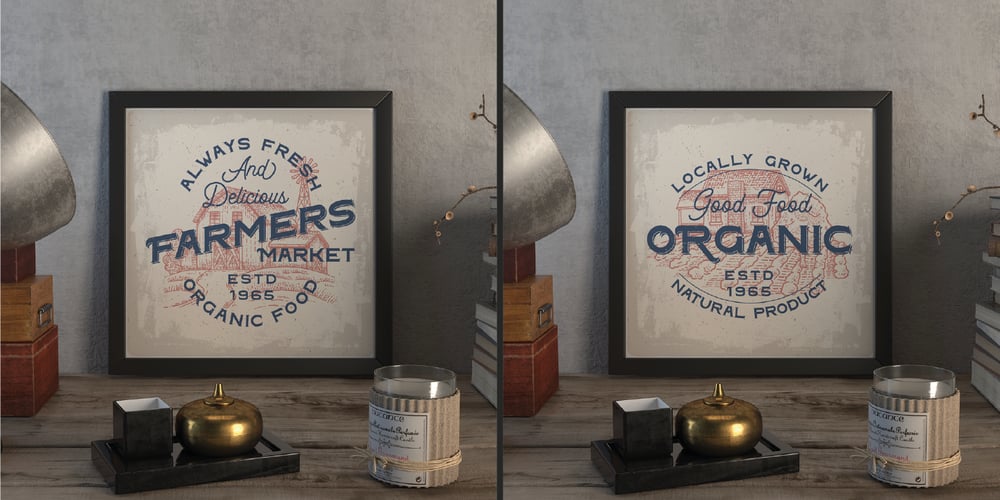
Farm House Font Family was designed by Oleg Voznyy and published by Vozzy. Farm House contains 10 styles and family package options. A vintage look label font named “Farm House”.Typeface includes five styles for clean version and five styles for rough version, for sample look at 4th preview. This font will good viewed on any retro design like poster, t-shirt, label, logo etc. For using effects layers (for clean or rough version): – Type your text in Regular. – Copy that and paste at the same position. – Change the style to Shadow or Texture.